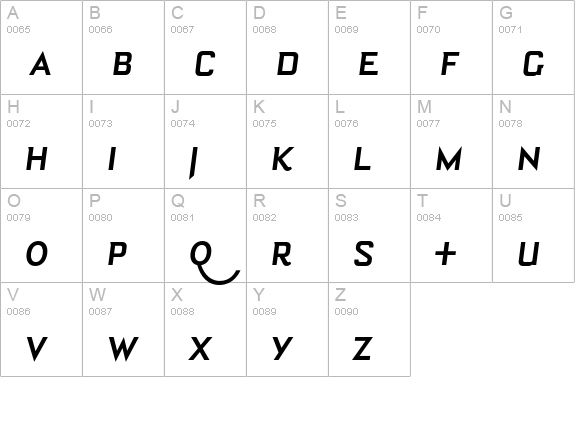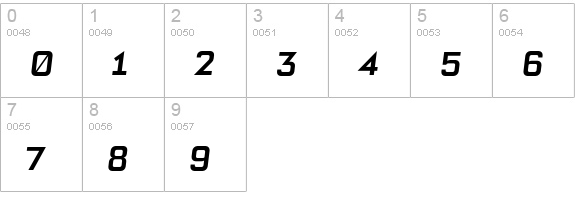
Bourgeois BoldItalAlt Font Details
Bourgeois BoldItalAlt is a sophisticated and elegant font that exudes a sense of luxury and refinement. Its bold yet graceful design is perfect for adding a touch of class to any project, whether it be a high-end branding campaign or a stylish editorial layout. The italicized style of the font adds a sense of dynamism and flair, making it stand out from the crowd. What sets Bourgeois BoldItalAlt apart is not just its aesthetic appeal, but also its accessibility. This premium font is available for free download at FontsMarket.com, allowing designers and creatives to access its timeless beauty without any cost. Whether you're working on a professional project or a personal passion, Bourgeois BoldItalAlt is the perfect choice for adding a touch of sophistication to your work. Download it today and elevate your designs with this exquisite font.